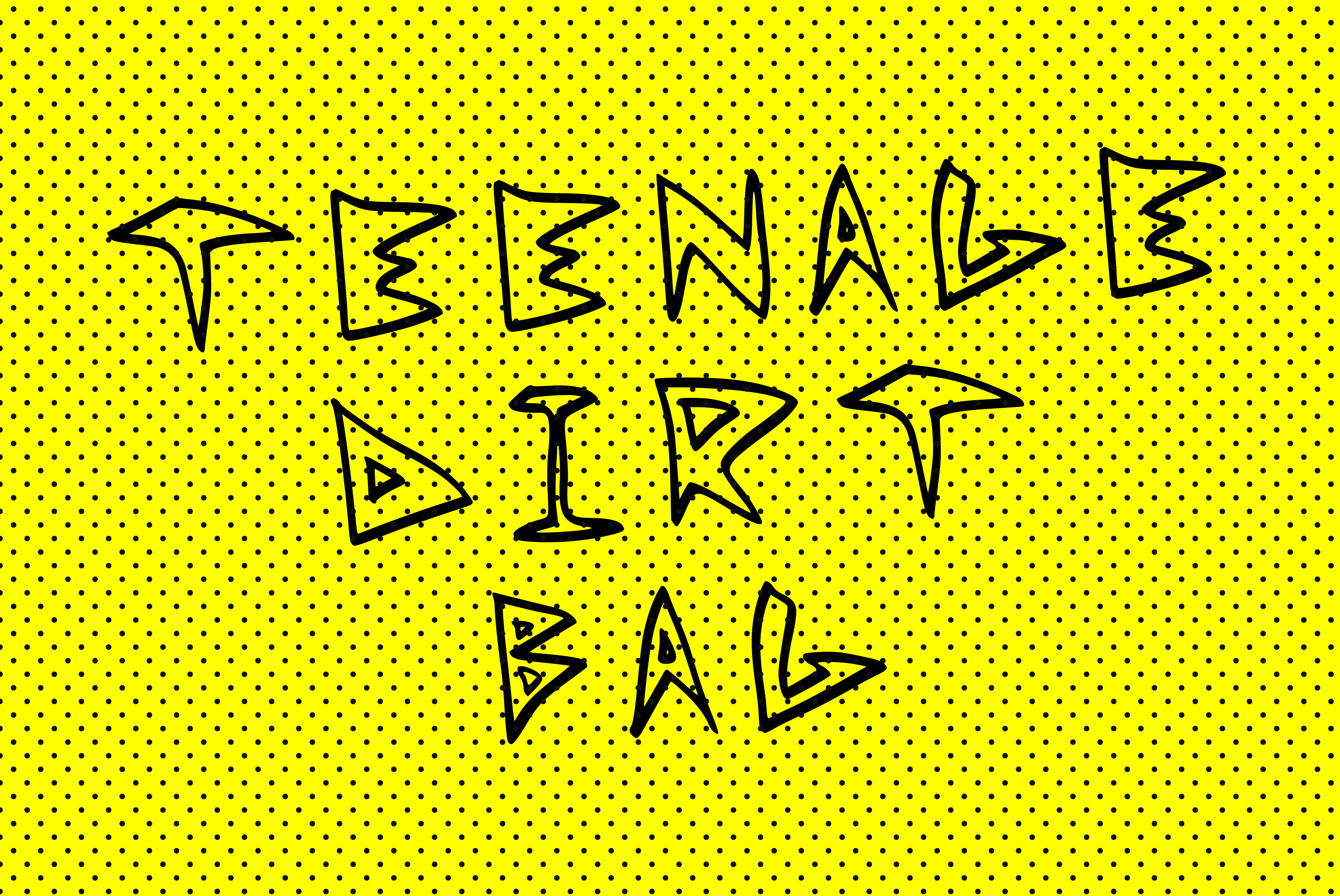
Introduction to Rok-a-zine Font
Remember that moment when you stumbled upon a hidden gem in a thrift store or a quirky market stall? The thrill of discovering something unique and quirky that sparks your creativity? That’s exactly what inspired us to create the Rok-a-zine Font – a design resource that captures the essence of DIY punk culture and the raw, unbridled energy of handmade zines.
As a designer, you know the value of having the right tools at your disposal. The Rok-a-zine Font is a high-quality design resource that’s perfect for creative projects that require a touch of grit and personality. With its free download and transparent background, you can easily incorporate it into your designs without any hassle. Whether you’re working on a project that requires a bold, handwritten feel or a more subtle, artsy touch, the Rok-a-zine Font is sure to inspire you.
Key Features of Rok-a-zine Font
- Unique, hand-drawn design with a touch of nostalgia, ideal for creative projects and design resources.
- High-quality font with a transparent background, allowing for seamless integration with any design or background.
- Comes in a range of sizes and resolutions, including 300 DPI, making it suitable for both digital and print applications.
- Features a bold, eye-catching style that is perfect for headings, titles, and other design elements.
- Perfect for designers looking for a free, high-quality design resource to elevate their creative project.
Honest Review: Rok-a-zine Font
I recently stumbled upon the Rok-a-zine Font, and I’m excited to share my thoughts on this design resource. First impressions are everything, and I was immediately drawn to the font’s unique, hand-drawn feel.
What works well: ✨ The font’s versatility is impressive, making it suitable for a wide range of creative projects, from graphic design to digital art. The high quality of the font ensures that it will render beautifully, even on smaller screens or with transparent backgrounds.
What I’d like to see improved: ⚠️ While the font is free to download, I wish there were more variations or a more comprehensive character set available. This would make it more suitable for longer, more complex text-based projects.
Here are some key features of the Rok-a-zine Font:
- Unique, hand-drawn design
- High quality, suitable for small and large text sizes
- Transparent background support for seamless integration
- Limited character set, may require additional fonts for complex text
Overall, the Rok-a-zine Font is a great addition to any designer’s toolkit, especially for those working on creative projects that require a unique, eye-catching font.
Tips for Getting the Most Out of Rok-a-zine Font
For the best results, use Rok-a-zine Font with a transparent background to create a unique and eye-catching design. Experiment with different font sizes and styles to add depth and visual interest to your project. You can also combine Rok-a-zine Font with other design elements, such as images and graphics, to create a high-quality design resource.
Rok-a-zine Font is perfect for creative projects, such as digital art, graphic design, and typography. You can use it to create eye-catching titles, headings, and body text for your project. With its unique and stylish design, Rok-a-zine Font is a great addition to any design resource collection.
Yes, the Rok-a-zine Font includes a transparent background option. This allows you to create designs with a clear background, perfect for use in digital media or when you need to combine the font with other design elements.
Q: Is the Rok-a-zine Font suitable for high-quality print projects?
Yes, the Rok-a-zine Font is designed for high-quality print projects. It’s optimized for use at large sizes and features clear, crisp lines and smooth curves. However, please note that the quality of the printed output also depends on the printing process and paper quality.